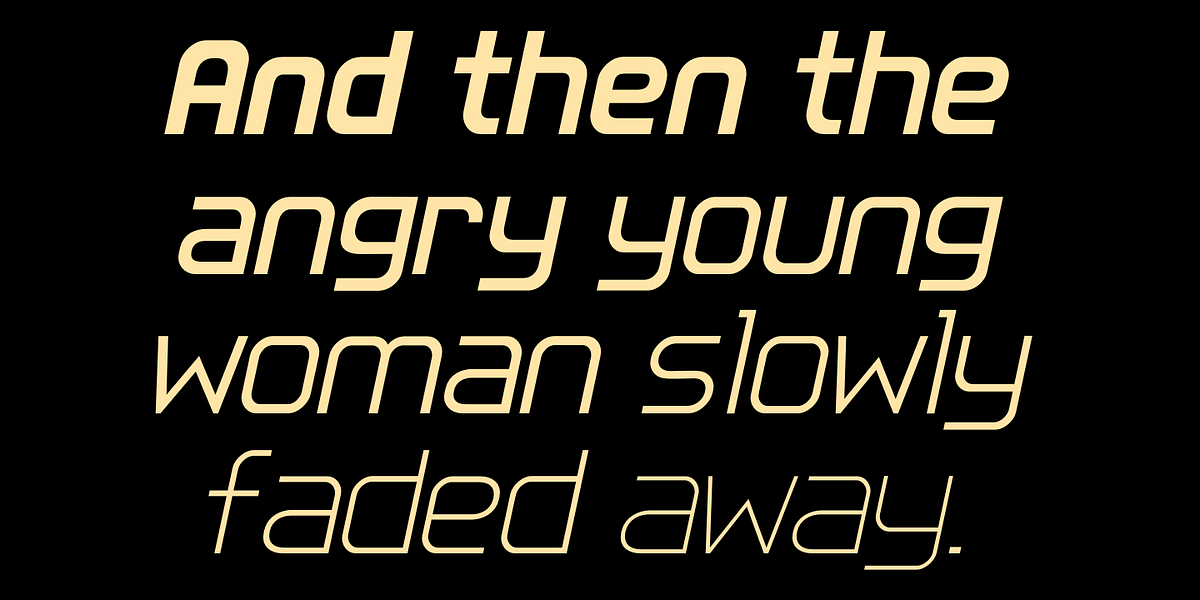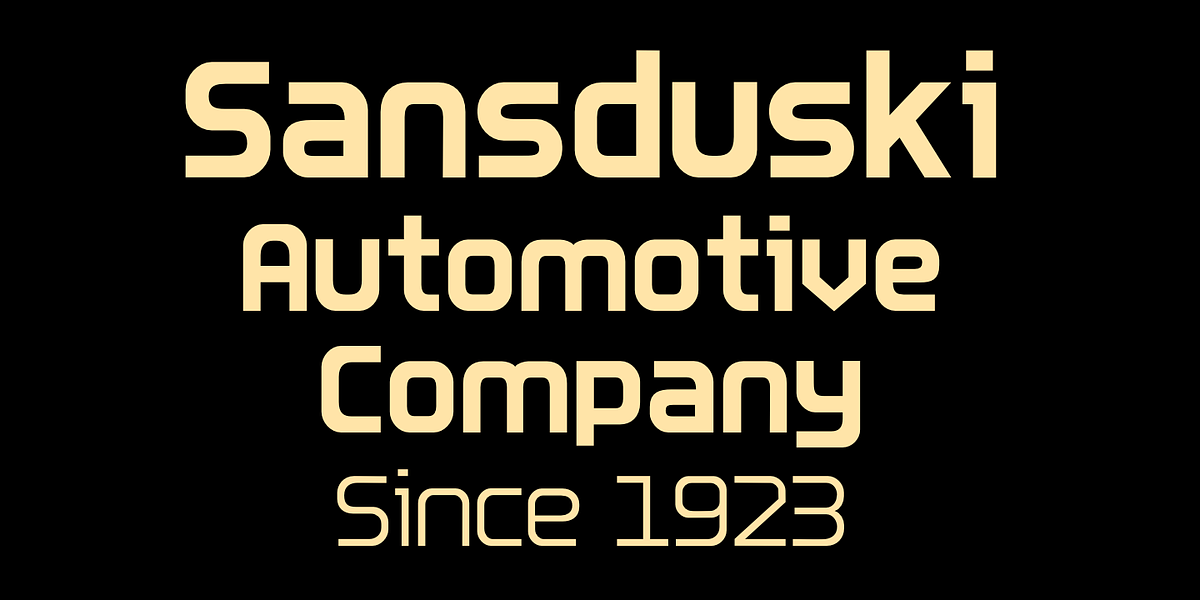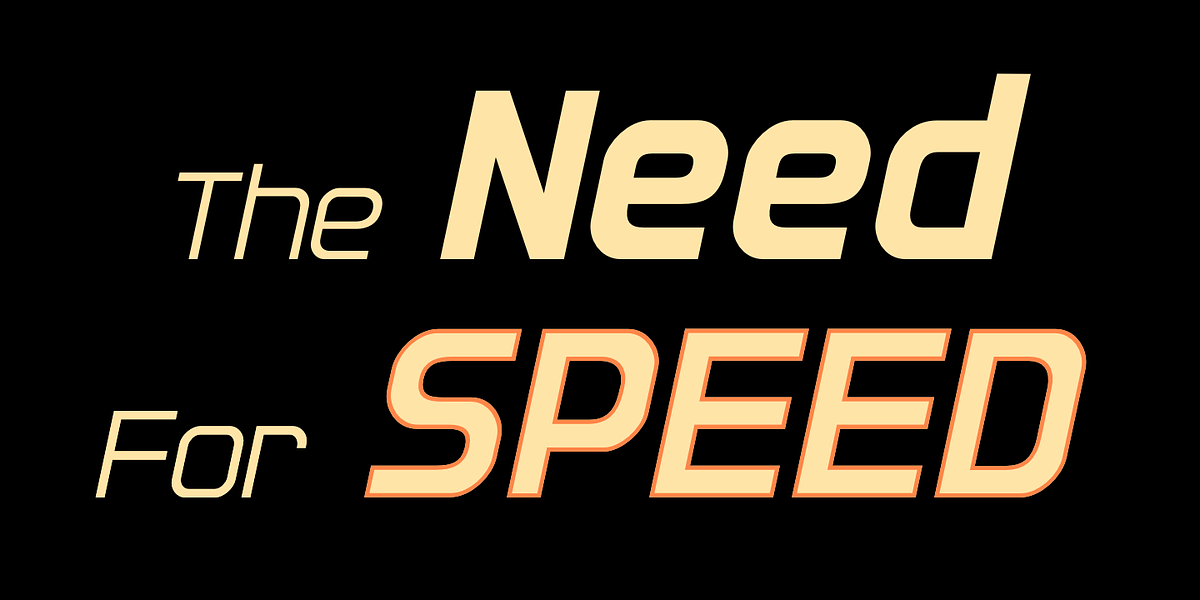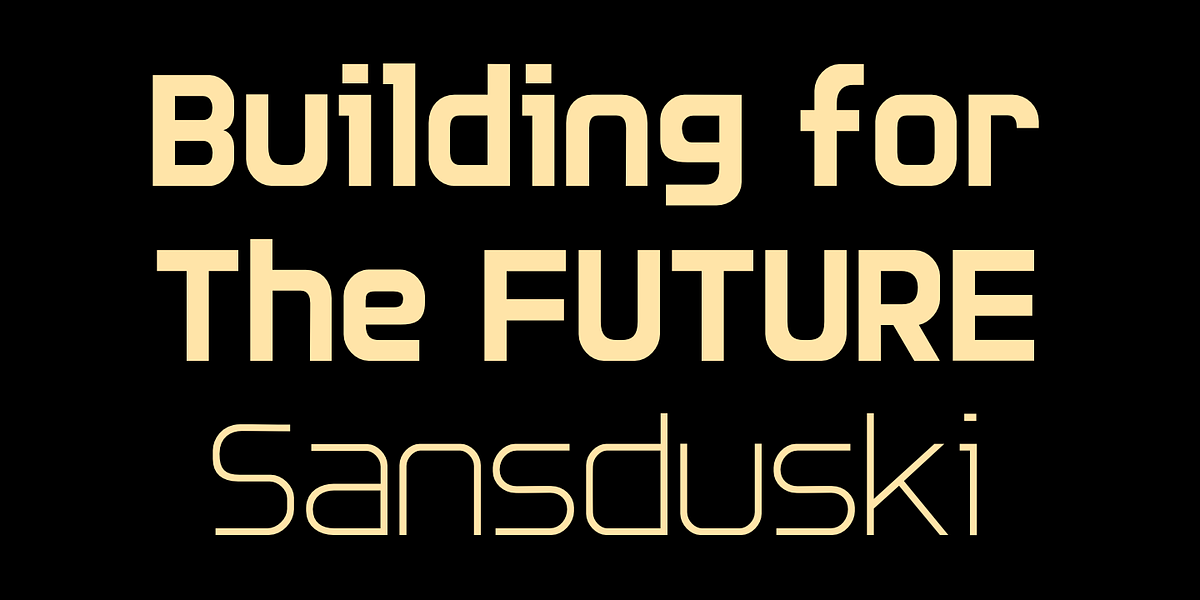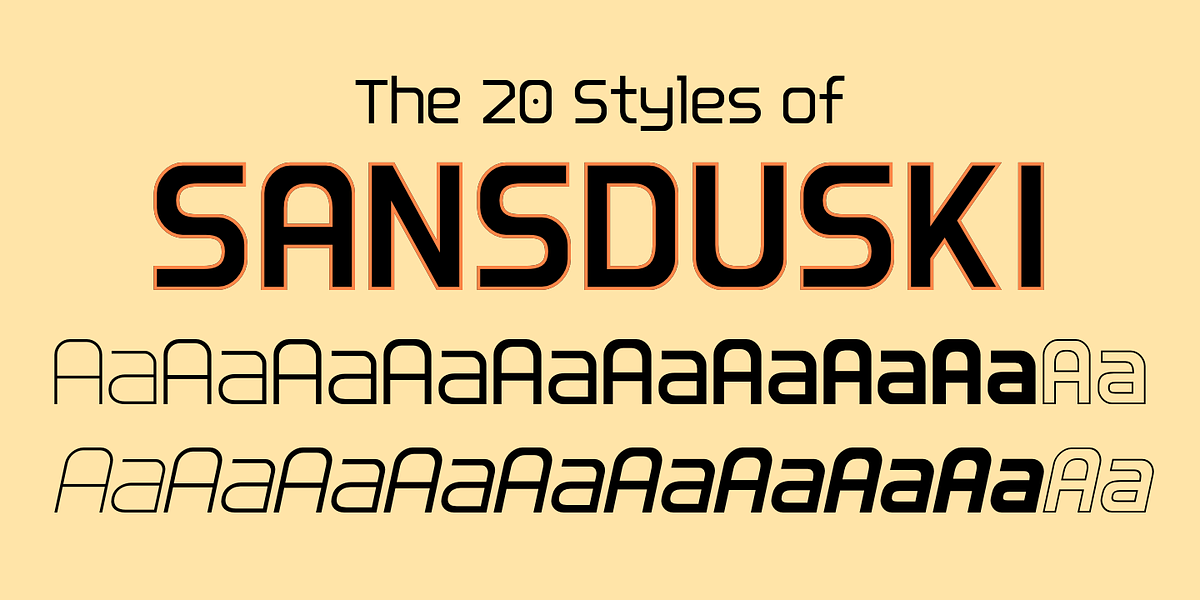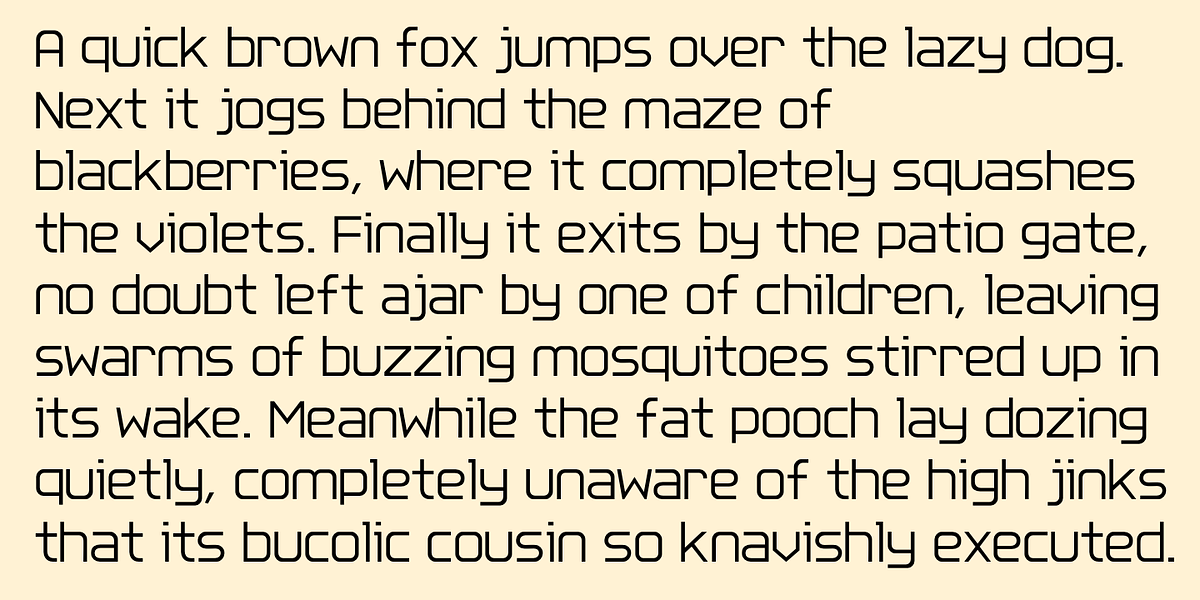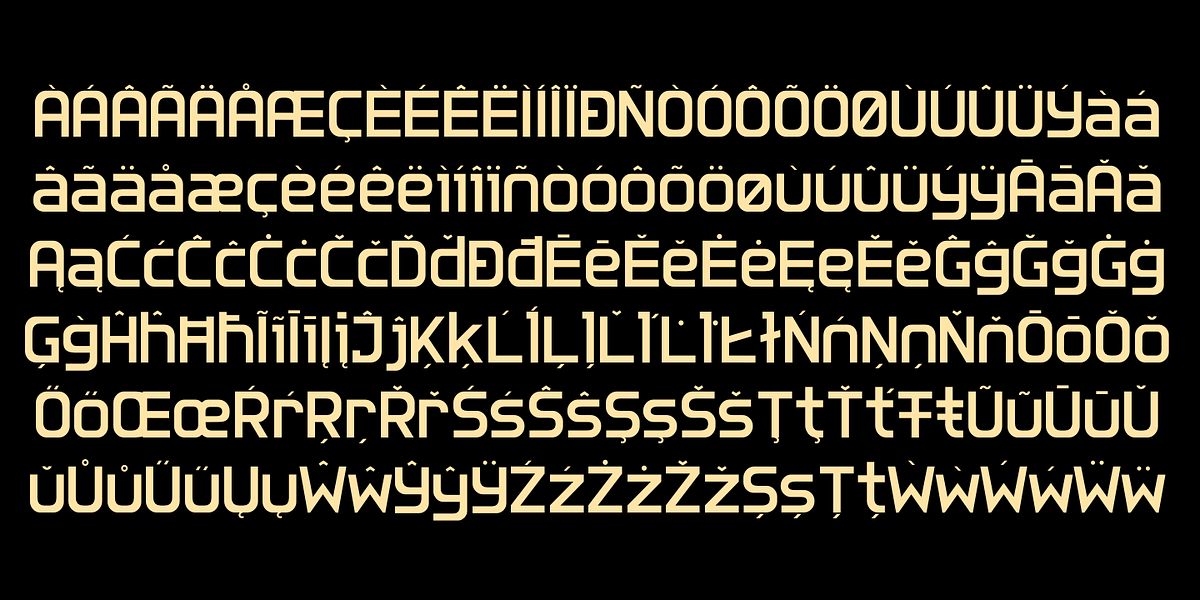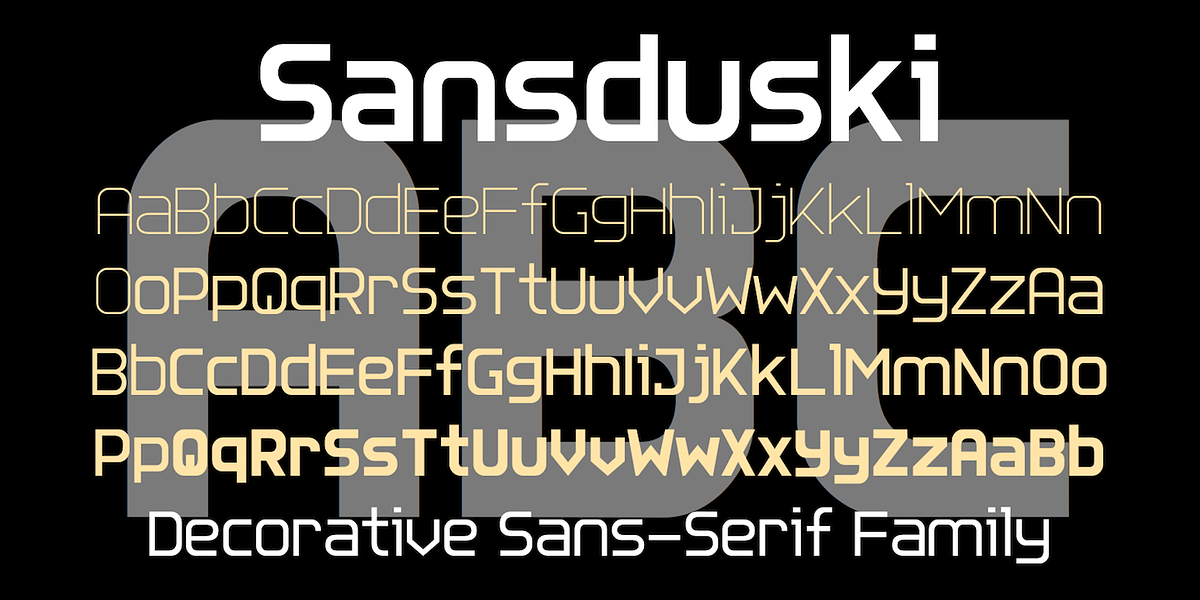
Sansduski
Sansduski is a geometric sans-serif font designed for display purposes. Its distinctive feature is the rectangular shape with rounded corners used for letters like 'O', which is carried over to other characters. The high x-height and tight spacing make it suitable for large point sizes in applications like titles, posters, and advertising where a bold, modern aesthetic is desired.